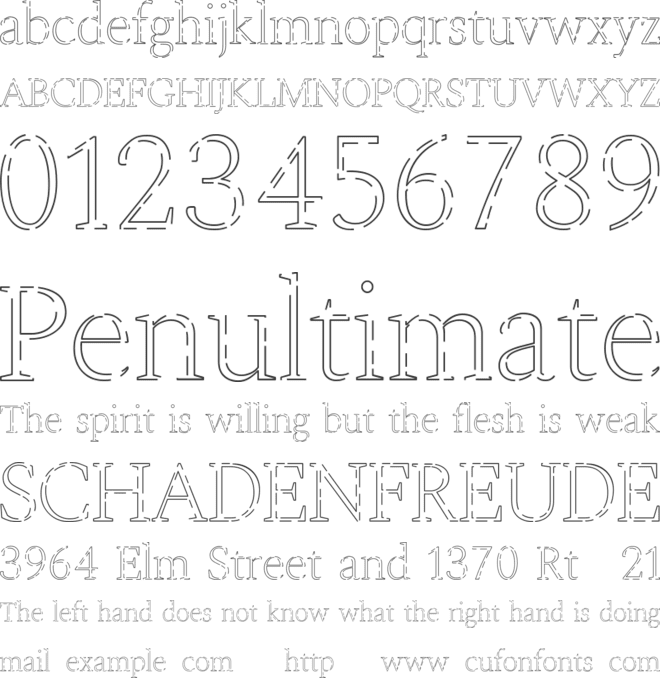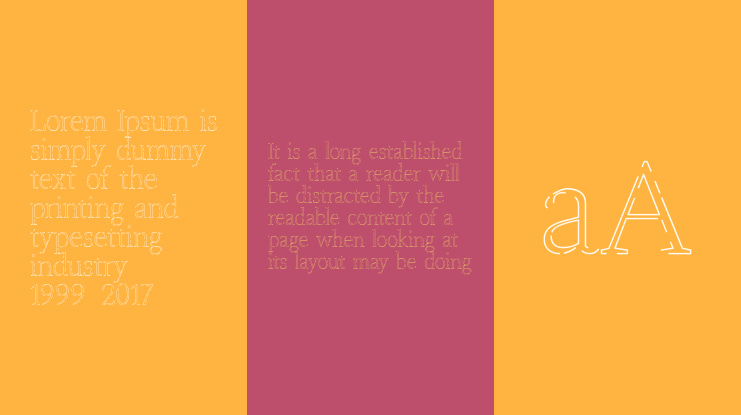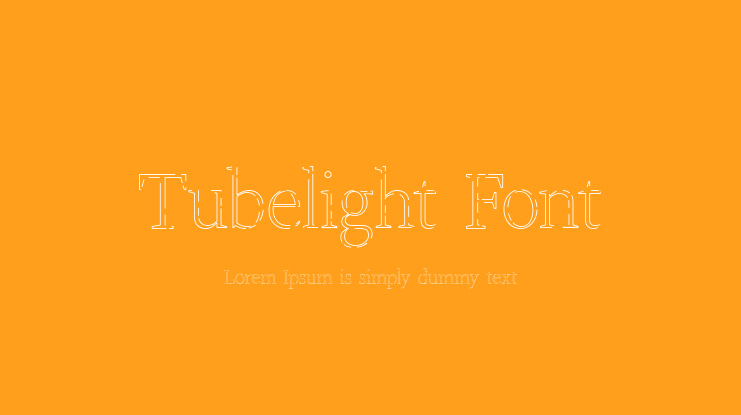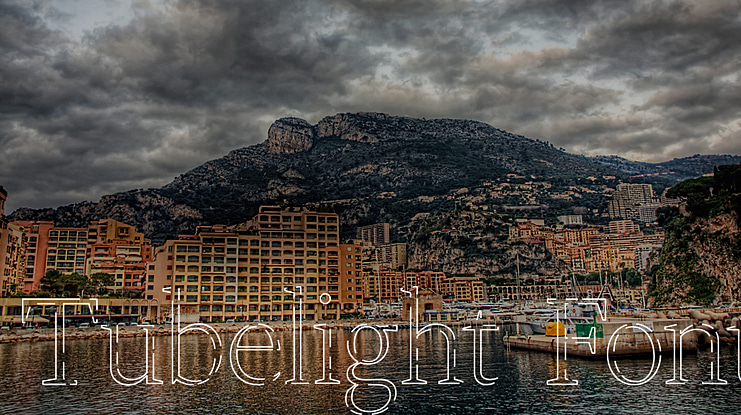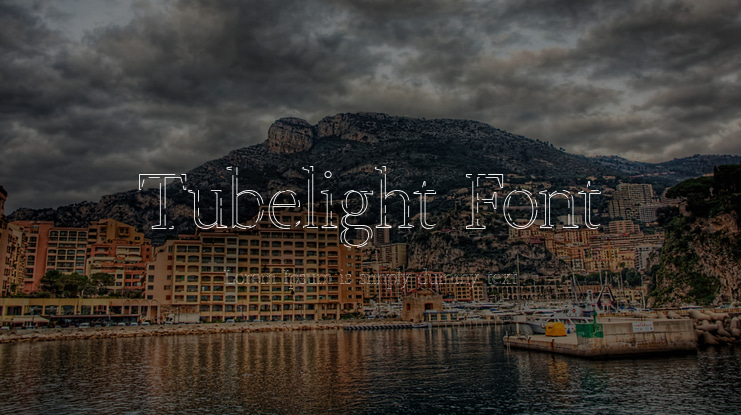
Tubelight Font
Tubelight Font is perfect for adding your own glowing light effects in Photoshop or Illustrator and can be used to actually design neon signs in serif style.